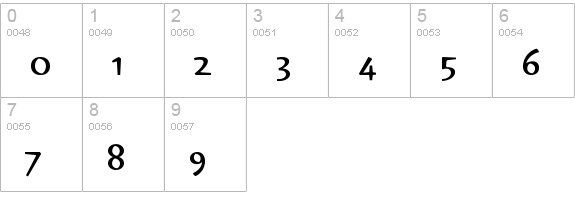
Green Std is a modern and versatile font that exudes a sense of freshness and vitality. With its clean lines and sleek design, this font is perfect for a wide range of design projects, from branding to web design. The Green Std font is available in both regular and bold weights, making it easy to create eye-catching headlines and text that commands attention. What's even better is that Green Std is completely free to use! You can download this stylish font at FontsMarket.com, where it is readily available for all your design needs. Whether you're a seasoned designer or just starting out, Green Std is a fantastic addition to your font library. So go ahead and give your projects a touch of modern elegance with the Green Std font today!